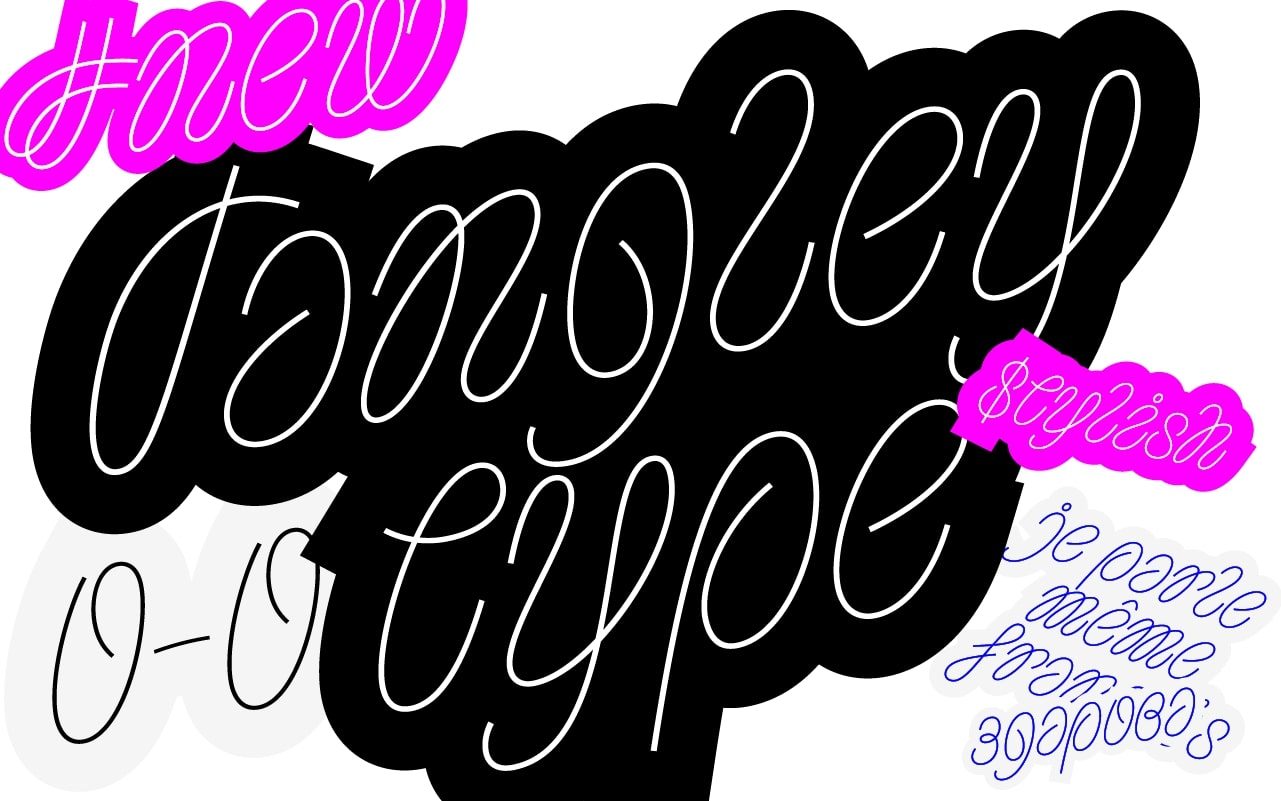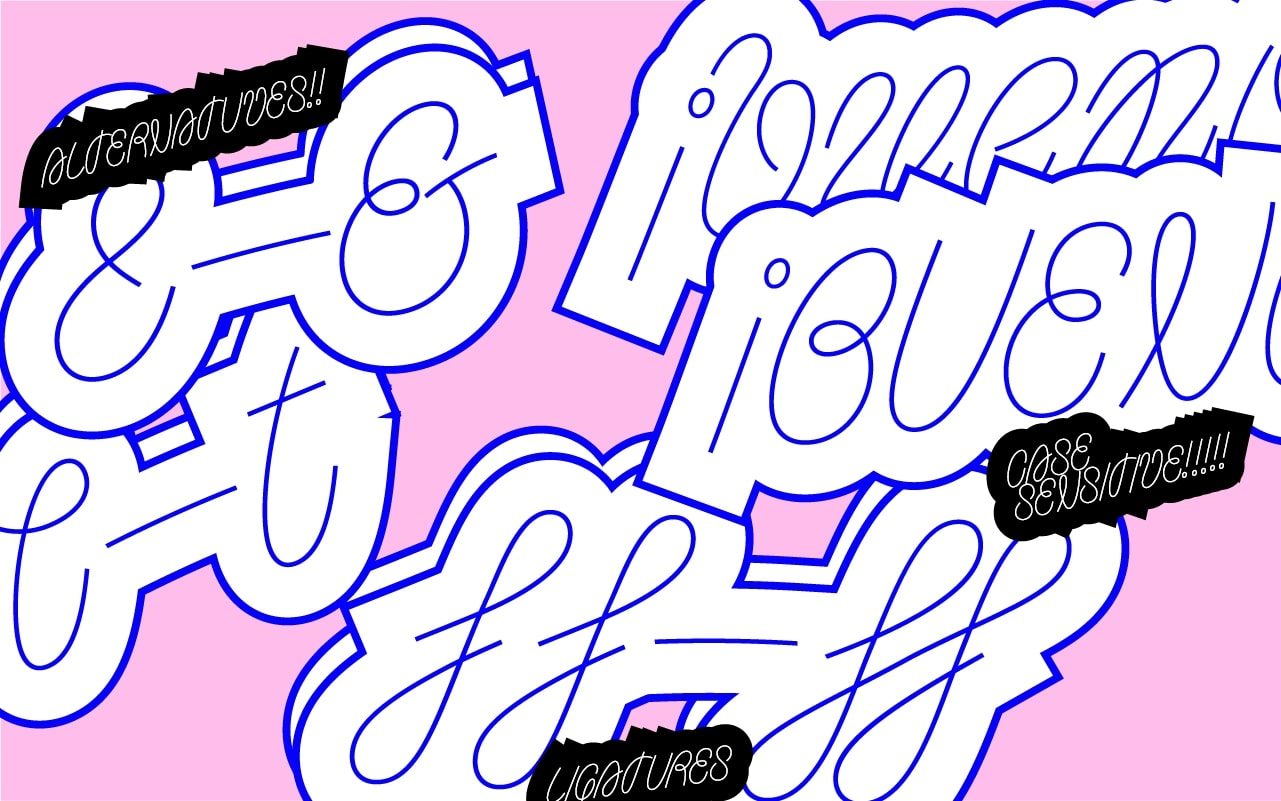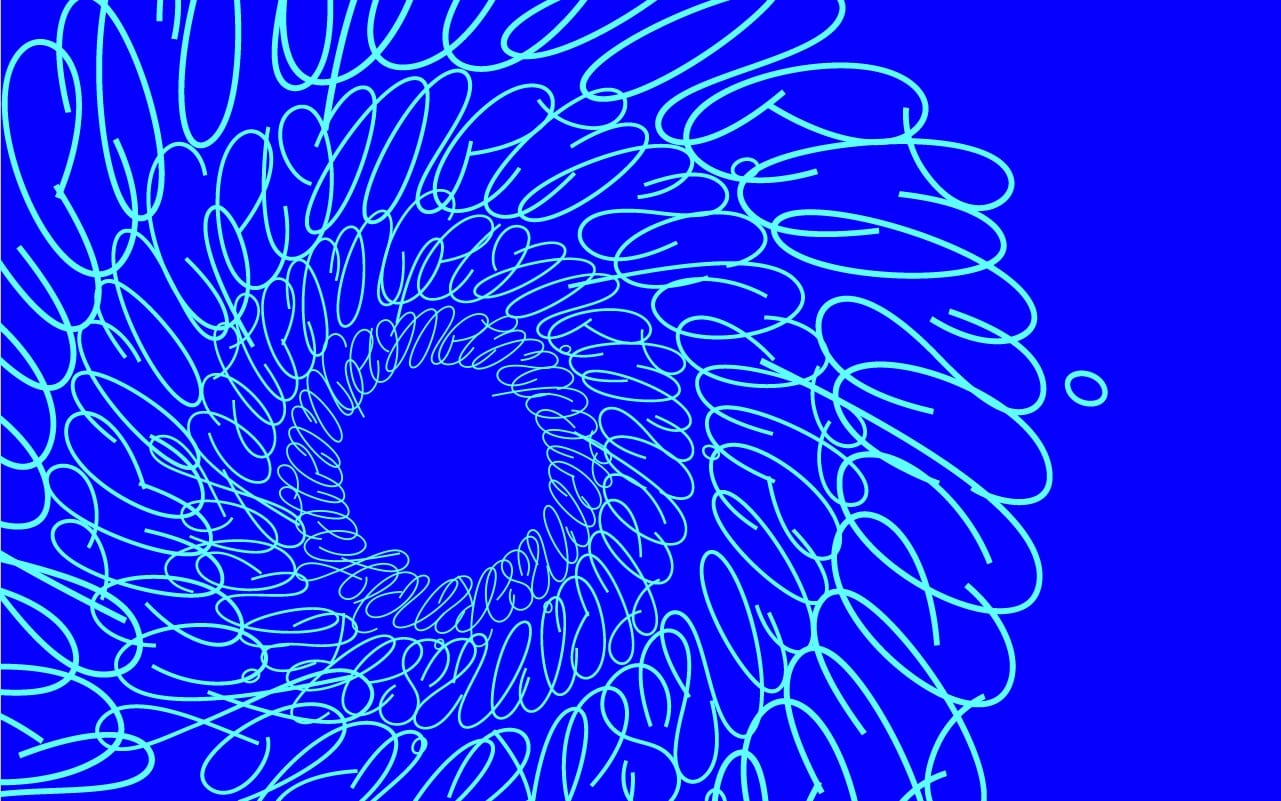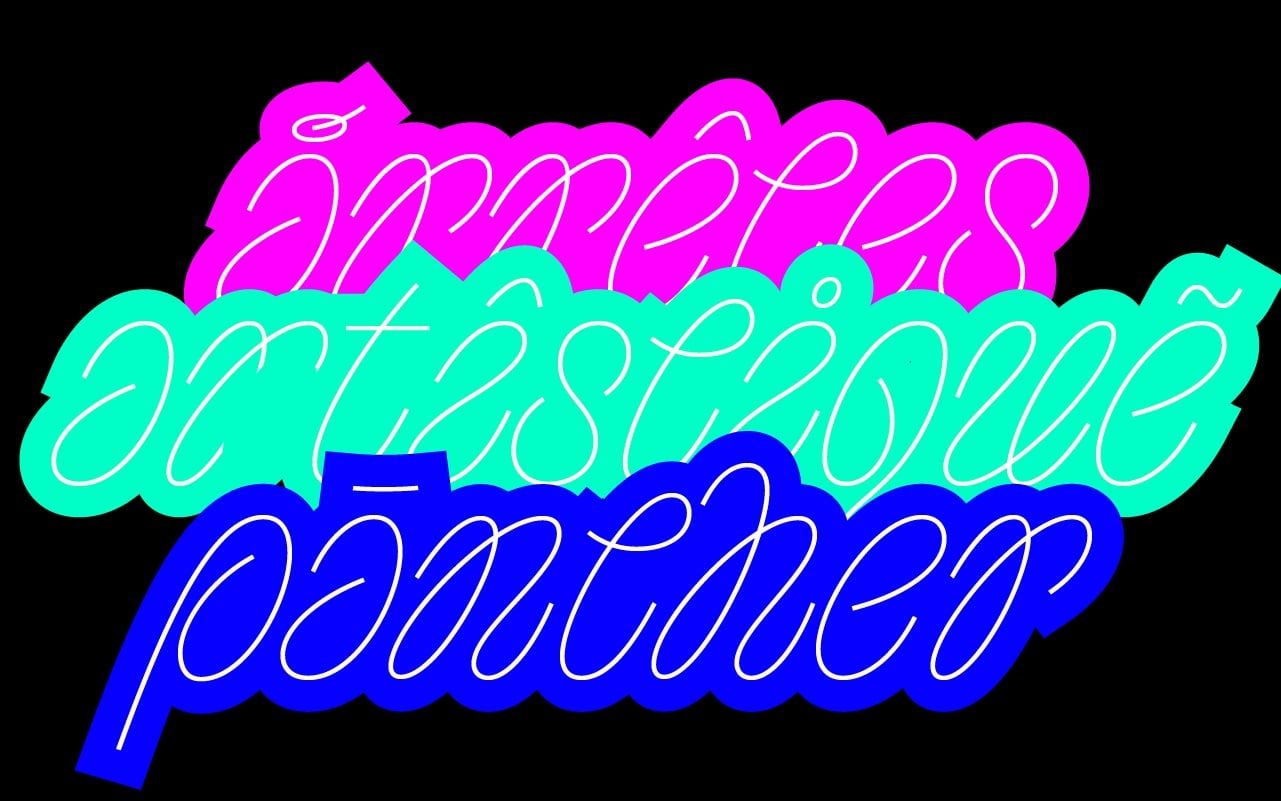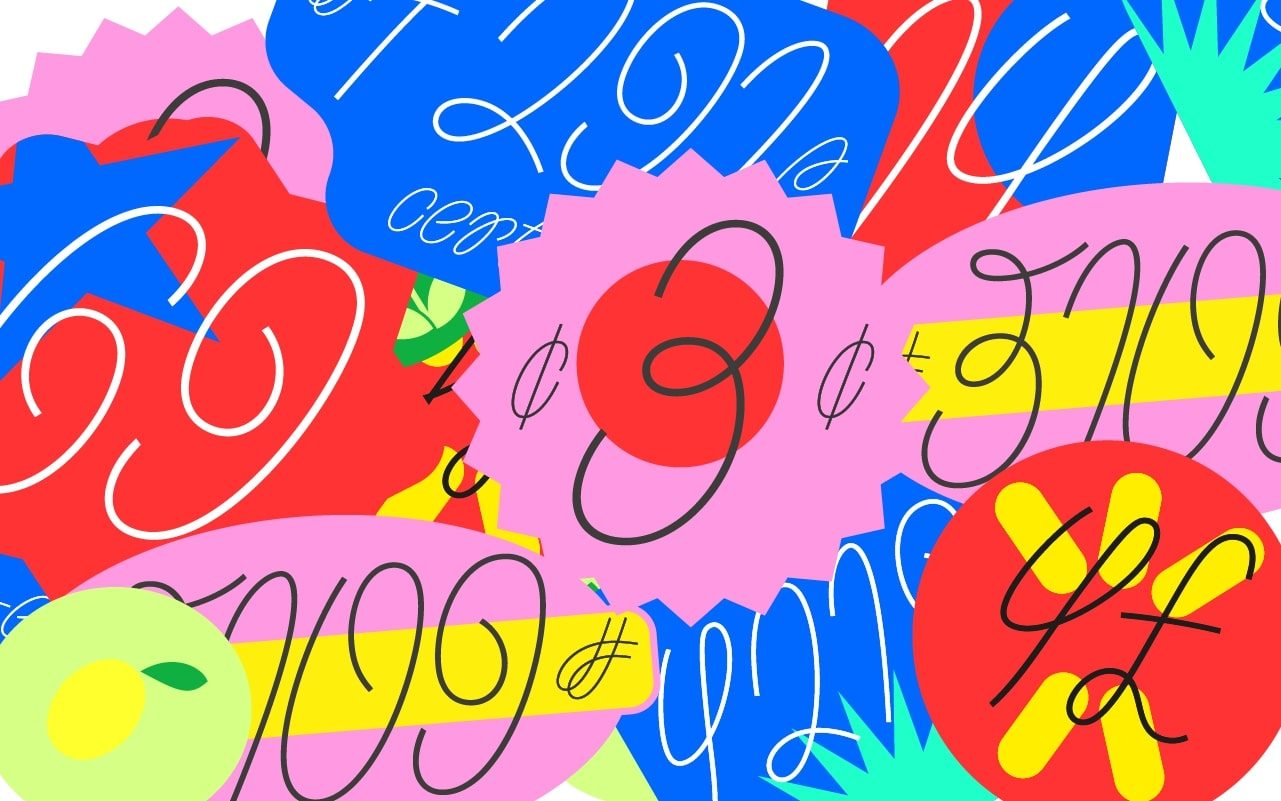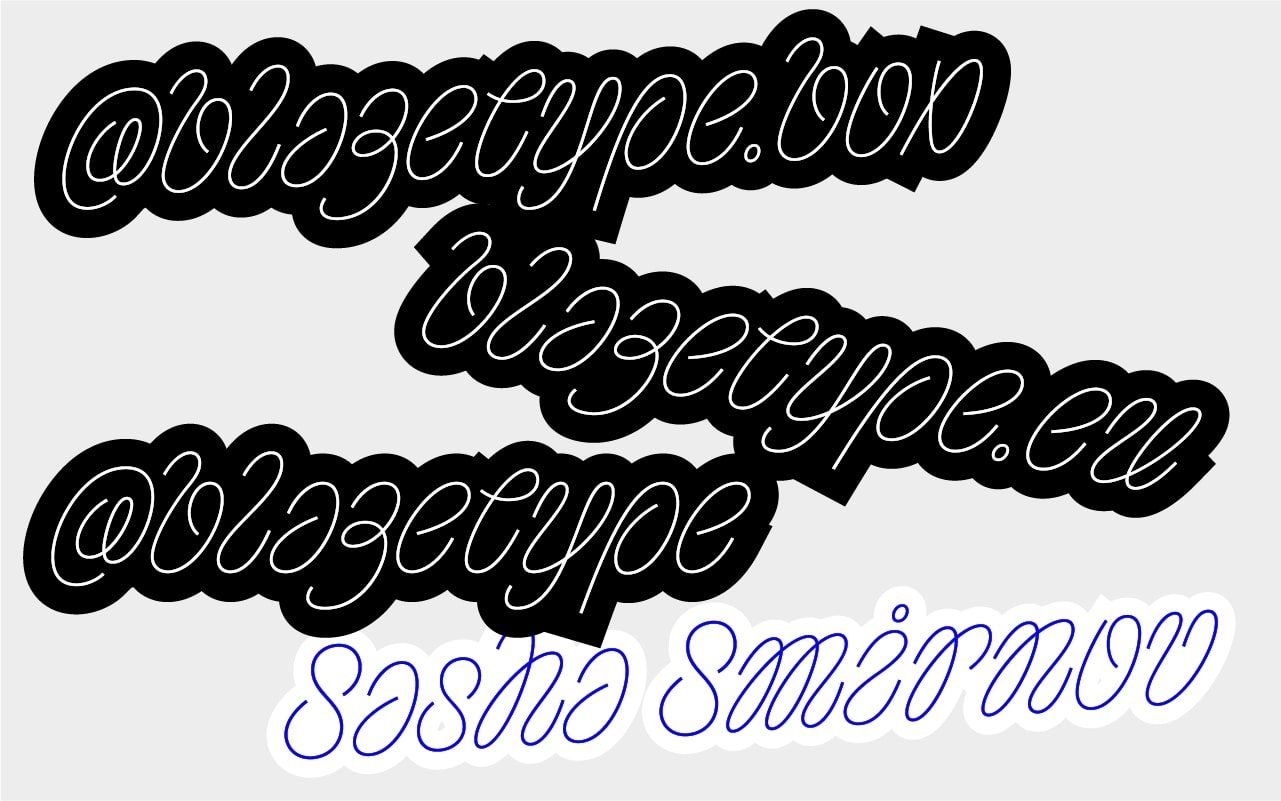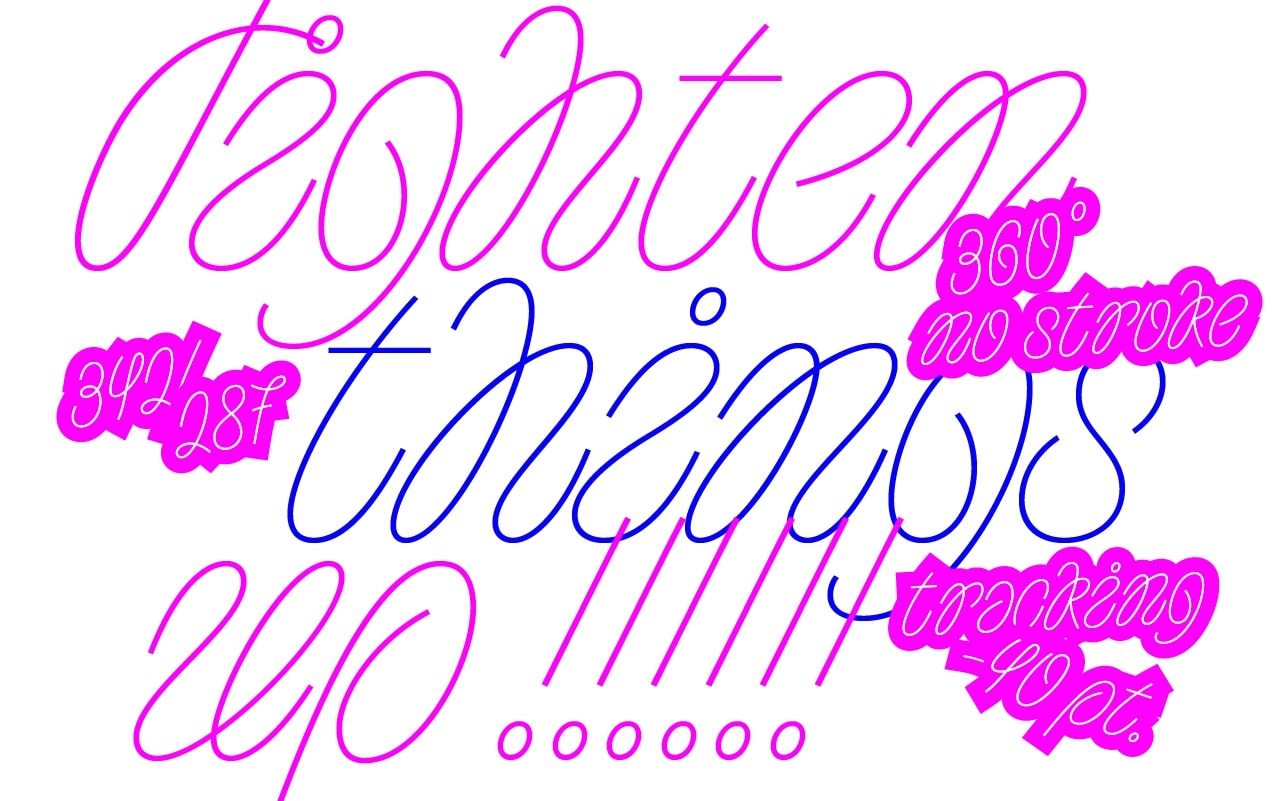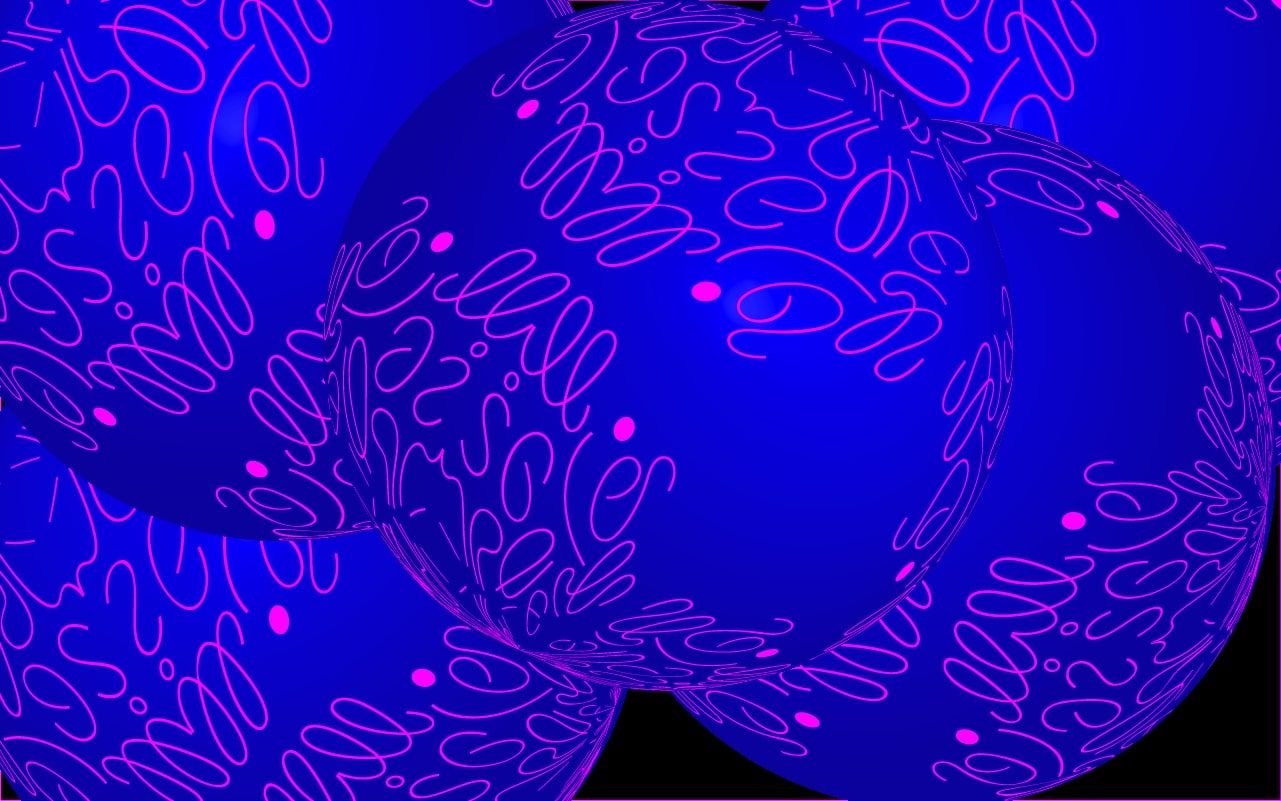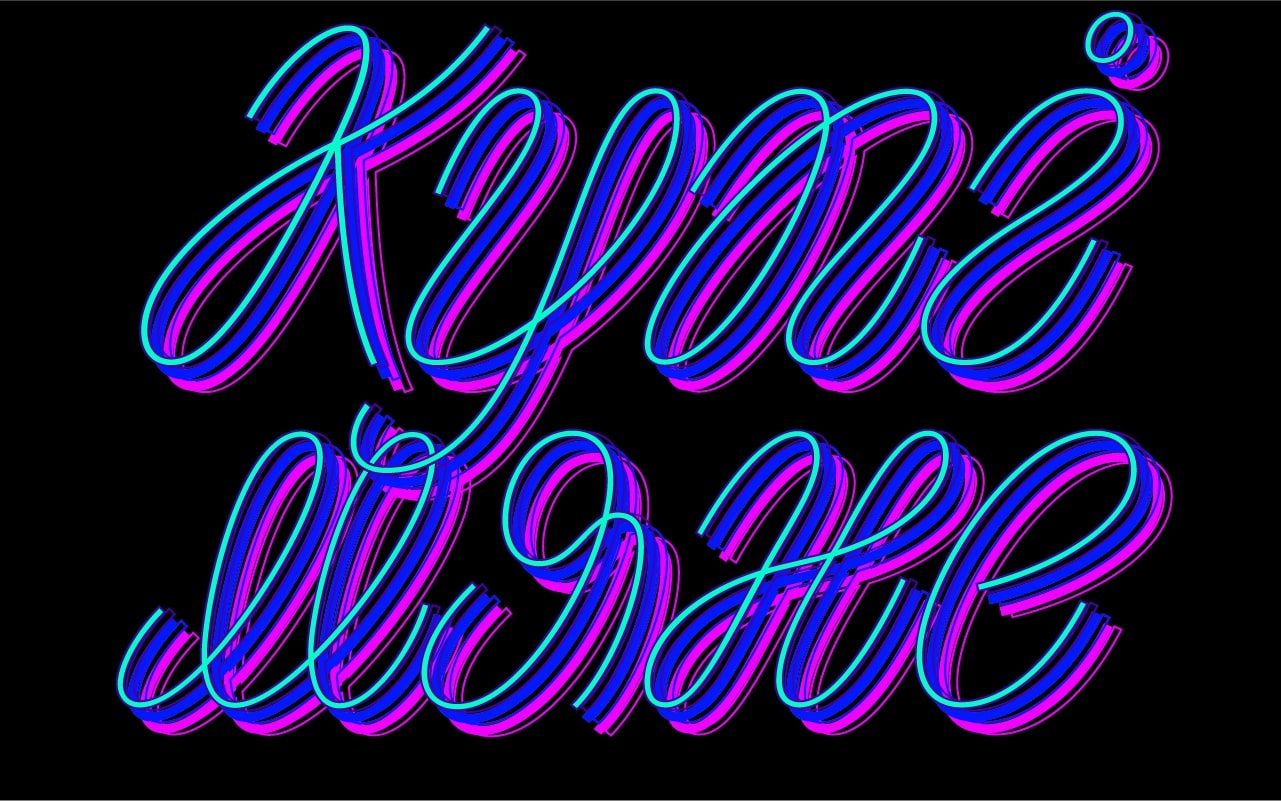
Tangley
The Tangley font is a loose interpretation of the Cy Twombly's graphic in the untitled series. The type has the characteristic loopiness of the letters, minimal spacing and the ability to typeset with zero or even negative leading. The height of the lowercase Tangley letters is made as high as possible to reduce the height difference in the title case and to increase the graphic loopy uniformity of the lines relative to each other.
Let your imagination loose and get lost in the loops of Tangley. Try all the craziest combinations like -100 in tracking or adding multiple strokes. Don't be constrained by legibility. Works cool in big sizes! Any headlines, large signs for way-finding, quotes in long-reads will always be catchy with that loopy Cy Twombly inspired style. The font style will do wonders when used in poster, movie and video titles and book covers.
Latin European and Cyrillic